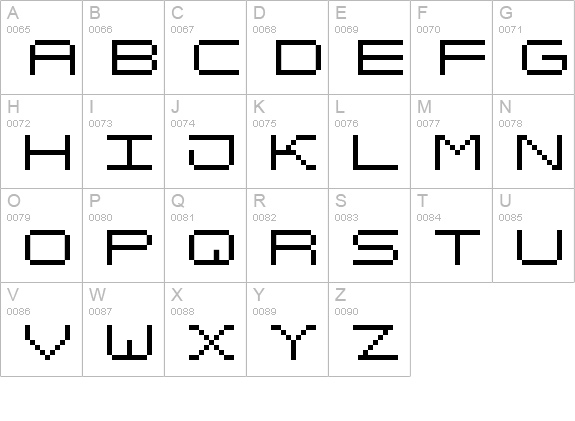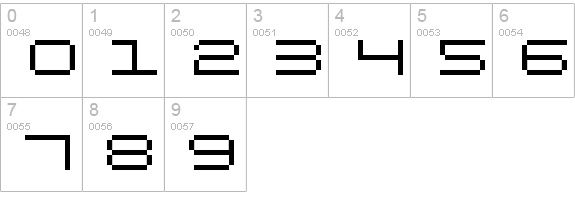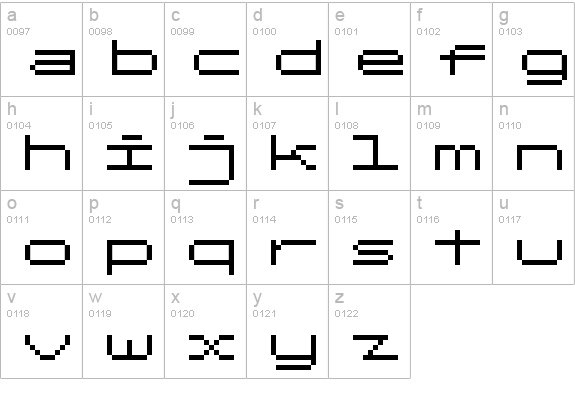
fixed_v03 Font Details
Fixed_v03 font is a modern and versatile typeface that combines clean lines with a distinctive fixed-width design. This font is perfect for creating a professional and stylish look in various projects, such as coding, technical documents, or design layouts. With its sleek and structured appearance, fixed_v03 font exudes a sense of precision and reliability. What sets fixed_v03 font apart is its unique ability to convey information clearly and efficiently, making it an ideal choice for any situation where readability is key. Whether used for programming code, graphic design, or web development, this font ensures that your message is delivered with clarity and impact. The best part is that fixed_v03 font is completely free to download at FontsMarket.com. This means you can easily access this high-quality typeface without any cost, allowing you to enhance your projects with a professional touch without breaking the bank. Don't miss out on the opportunity to elevate your designs with the sleek and modern fixed_v03 font - download it today and see the difference for yourself!